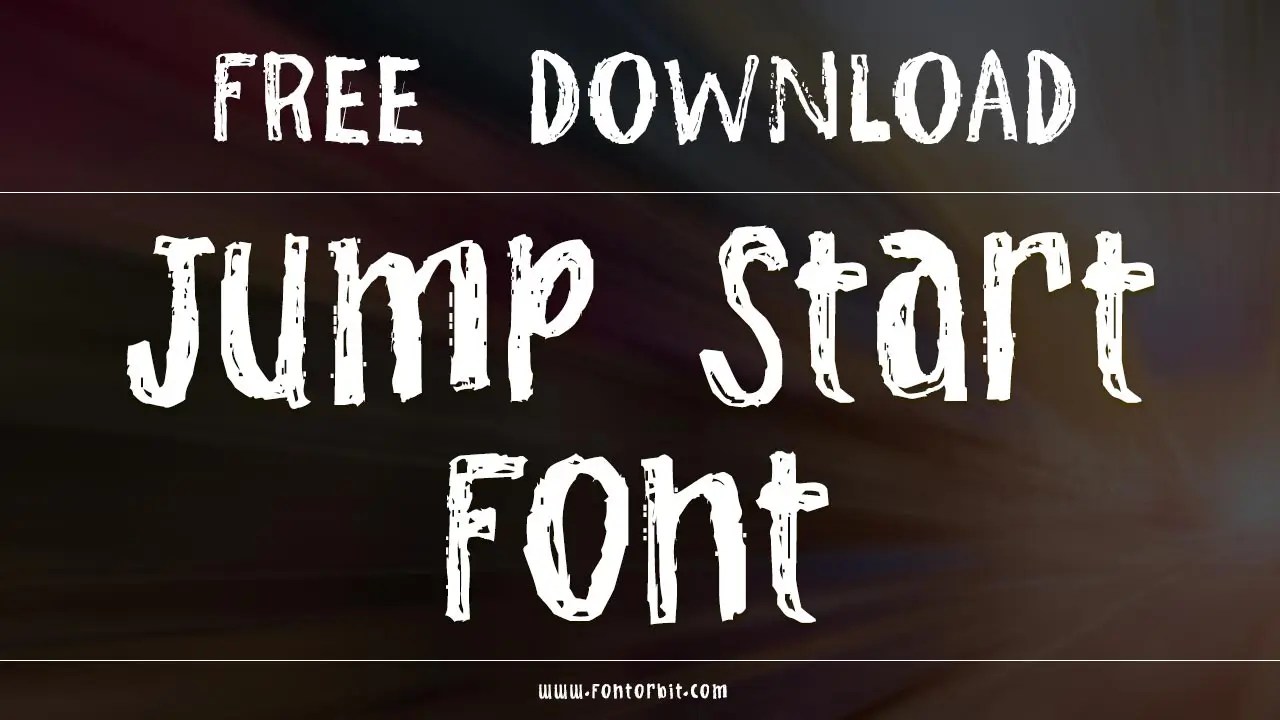
Jump Start Font, designed by Karolann Wintheiser, is a bold and expressive display typeface. Its hand-drawn look makes it perfect for posters, branding, and creative design projects. Whether you’re designing for digital or printed materials, this cool font adds personality to your work.
Jump Start Font is a custom font known for its unique character map and special characters. It is available in one default style but is highly versatile for various design needs.
- Name: Jump Start
- Style: Display, Hand Drawn
- Designer: Karolann Wintheiser
- Type: Display Typeface
- Jump Start Regular
Where To Use Jump Start Font
This perfect font is great for:
- Posters & Flyers – Stand out with bold, dynamic text
- Printed Materials – Brochures, business cards, invitations
- Templates & Mockups – Great for design projects
- Educational Content – Ideal for Jumpstart Kindergarten materials
- Text Boxes & Social Media Posts – Add a hand-drawn touch
Jump Start Font is a dynamic and expressive typeface, making it a perfect font for creative projects. Whether you’re designing posters, printed materials, or social media content, this cool font will bring your ideas to life. Start using Jump Start Font today and power up your designs!
1.What Is Jump Start Font Best For?
Ideal for posters, branding, and educational materials.
3.Does Jump Start Font Support Special Characters?
Yes, it includes a rich character map with multiple glyphs.
5.What Font Style Does Jump Start Font Have?
It comes in a default display font style with one style variation.